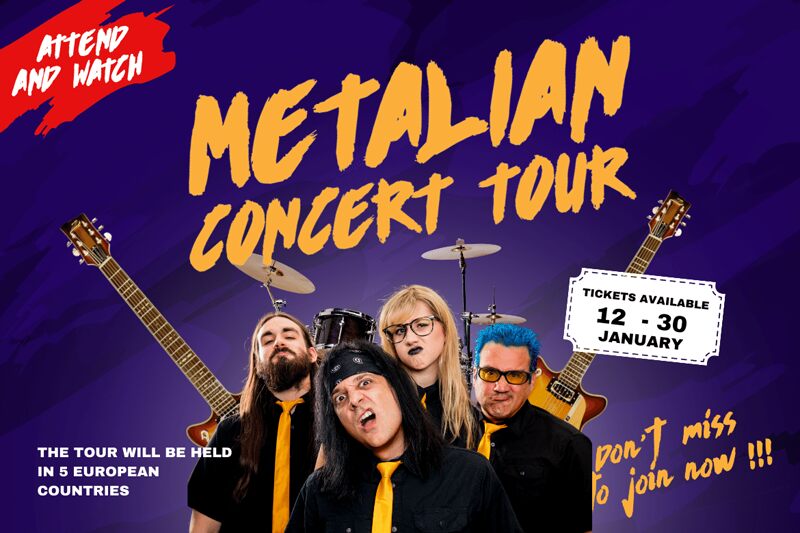
Regratte, a bold and dynamic brush font crafted by Sifak Muf, exudes a captivating energy that commands attention. This expressive typeface boasts a striking, handwritten aesthetic, with each character bearing the distinct marks of a skilled calligrapher's hand. The bold, sweeping strokes and imperfect edges lend an organic, artisanal charm, conveying a sense of authenticity and individuality.
The versatility of Regratte makes it a versatile choice for a wide range of design applications, from eye-catching headlines and impactful logos to expressive branding elements and captivating editorial layouts. Its bold, distinctive style lends itself particularly well to projects that seek to convey a sense of passion, creativity, or a touch of the unexpected.